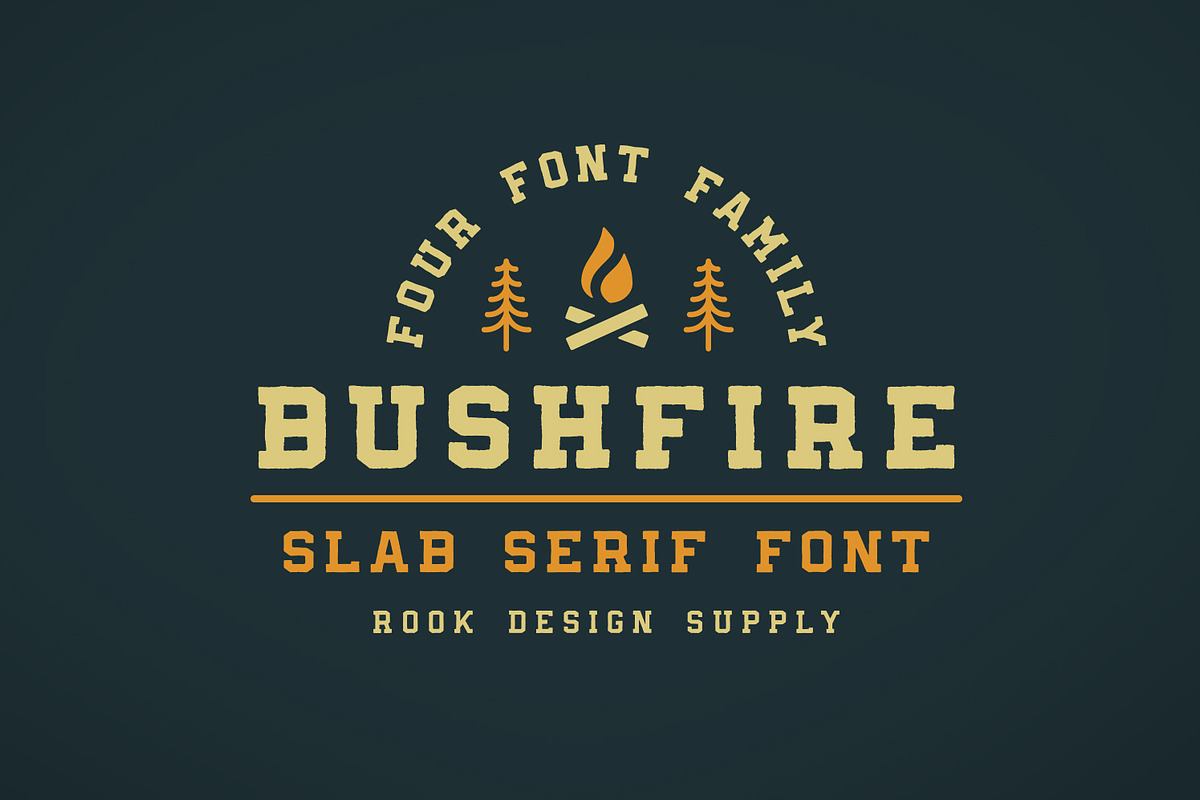
Bushfire 4 Font Family Free Download is a bold and rugged typeface family designed to evoke strength, adventure, and the raw power of nature. With its textured, distressed look and unique design, this font family is perfect for outdoor branding, adventure logos, posters, and designs that need to convey a sense of toughness and resilience.
The Bushfire 4 Font Family includes multiple styles, ranging from heavy display fonts to more subtle, text-friendly versions, making it versatile for both headlines and body text. Whether you're designing for an outdoor gear brand, a rugged lifestyle campaign, or anything in between, this font family adds character and intensity to your typography.